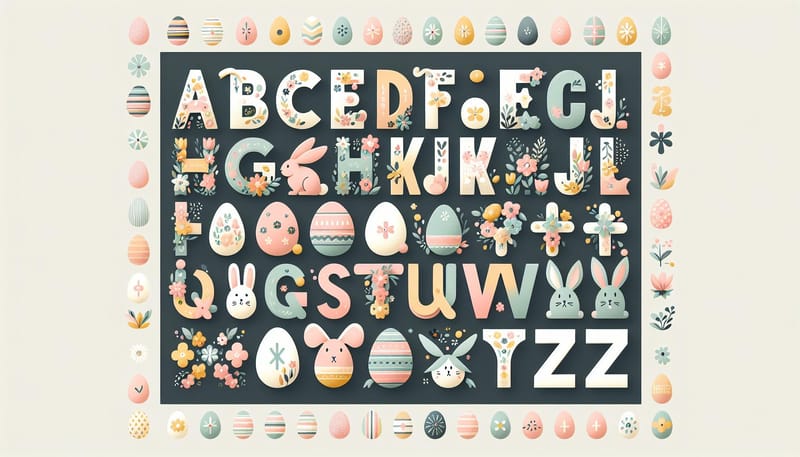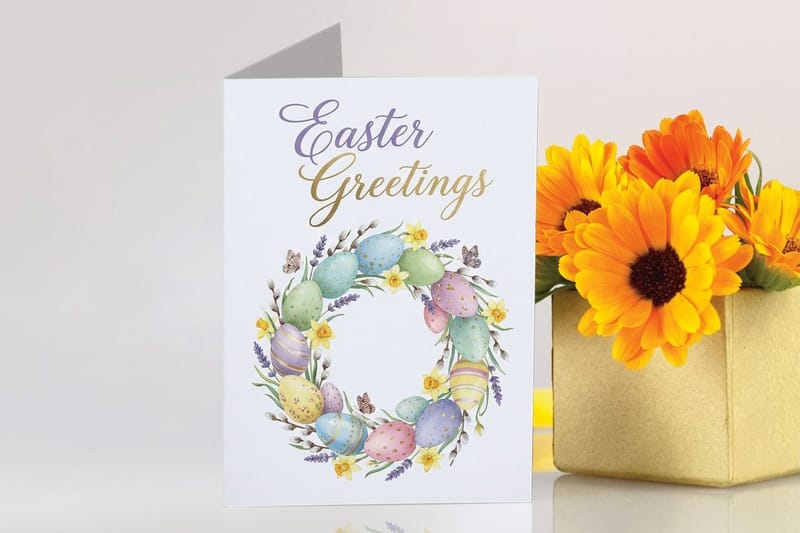
15 Free Easter Fonts to Download, With Licenses and Print Specs
Easter Inspired Free Font Downloads That Actually Look Good in Print
Easter inspired free font downloads give designers, small business owners, and DIY crafters a fast way to add seasonal personality to print without spending a dollar. 4OVER4.COM has printed 10 billion+ cards and print products across 1,000+ products since 1999, and we have watched the right font turn a plain Easter card into something people keep on the fridge for weeks.
The font you pick sets the mood before anyone reads a word. A chunky bunny-ear display face reads kids party. A delicate serif with floral swashes reads elegant brunch. A bold hand-lettered script reads local bakery sale. Most of these designs land on the everyday pieces in our Marketing Materials range, from cards to postcards to flyers.
This guide breaks down the best Easter font styles you can download free in 2026, how to use them across print and digital, and what to check before you commit to a full run. Start with the mood you want, then let the font carry it.
Handwritten Easter Fonts for a Personal Touch
Handwritten fonts are the most popular category for Easter inspired free font downloads. They mimic real pen strokes, slightly imperfect, warm, and inviting, the way someone might address an Easter card by hand. That is the whole appeal.
They work beautifully with the same hand-lettered approach you would use for greeting cards, where swapping wintry motifs for bunnies and eggs carries the look straight into spring. Many handwritten Easter fonts even build bunny-ear accents into letters like b and d, or tuck a tiny egg into the character set.
Handwritten Easter fonts shine on a few specific pieces:
- Personalized Easter cards printed on textured cardstock for a homemade feel.
- Gift tags and labels tied to Easter baskets or spring gift bags.
- Social graphics Instagram stories, Facebook event covers, and Pinterest pins.
- Menu cards for Easter brunch or a family dinner.
Fun Display Fonts for Kids' Easter Projects
Fun fonts are exactly what they sound like. Egg-shaped letters. Rabbit ears popping off a capital. Polka dots inside each character. These Easter inspired free font downloads are built to grab attention and make kids, and plenty of adults, smile.
They are not subtle, and that is the point. Use them on egg hunt flyers, classroom decorations, and party invitations. If you run promotions for families, the same playful energy behind these logo sticker design ideas turns a seasonal sale into something shareable, and it pairs naturally with printable party decorations.
A few things to watch with fun fonts:
- Readability drops fast so use them for headlines only, never body text.
- Pair with a clean sans-serif and let the fun font be the star.
- Check the character set since some free fonts skip numbers or punctuation.
- Test at small sizes because decorative details turn to blobs below 24pt.
For posters and banners, fun fonts need high contrast. Dark text on a light background, or white knocked out of a bold pastel. Keep decorative type off busy photos or the details vanish.
Elegant Easter Fonts for Upscale Spring Branding
Not every Easter project wants cartoon bunnies. Elegant Easter fonts bring the season in through small details, a floral swash on a capital, a tiny nest as a period, soft curves that suggest spring without shouting it.
These faces suit brands that want to nod to the holiday without a full pastel explosion, think boutique retail, spa promotions, upscale menus, or a real estate open house. The same restraint you see in amazing business card design applies here, where refined type builds credibility.
Elegant Easter fonts pair well with:
- Soft color palettes dusty rose, sage green, cream, and lavender.
- Foil or spot UV finishes a gold foil greeting in an elegant serif looks stunning.
- Minimalist layouts let the font talk with plenty of white space.
- Premium stocks 32pt ultra-thick or cotton paper for a luxurious feel.
Finishes like soft-touch lamination and raised spot UV make elegant fonts feel as good as they look. Run a fingertip across a raised script on a 32pt card and you understand why people keep it.